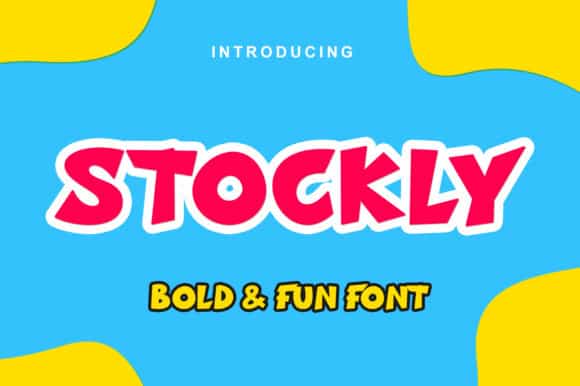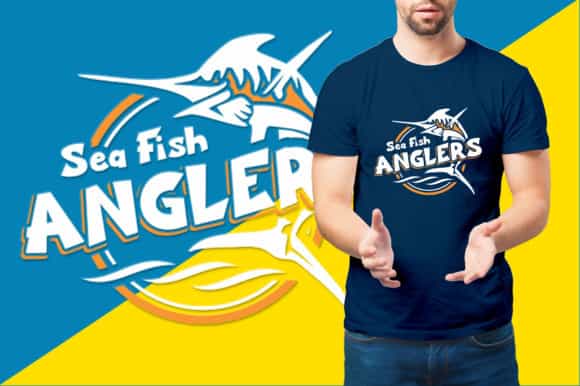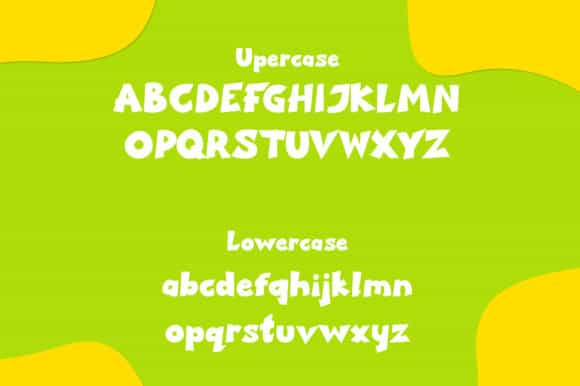
Stockly is an amusing font and there is no limit to what can be done with it. It’s am child-friendly font. I would look perfect on creating designs aimed at children. Stockly Display is a font that has elements of comic style and can be used for a large number of projects. Packaging logo, branding, website headline, food menu, kids or woman apparels, signature, and all other project designs.